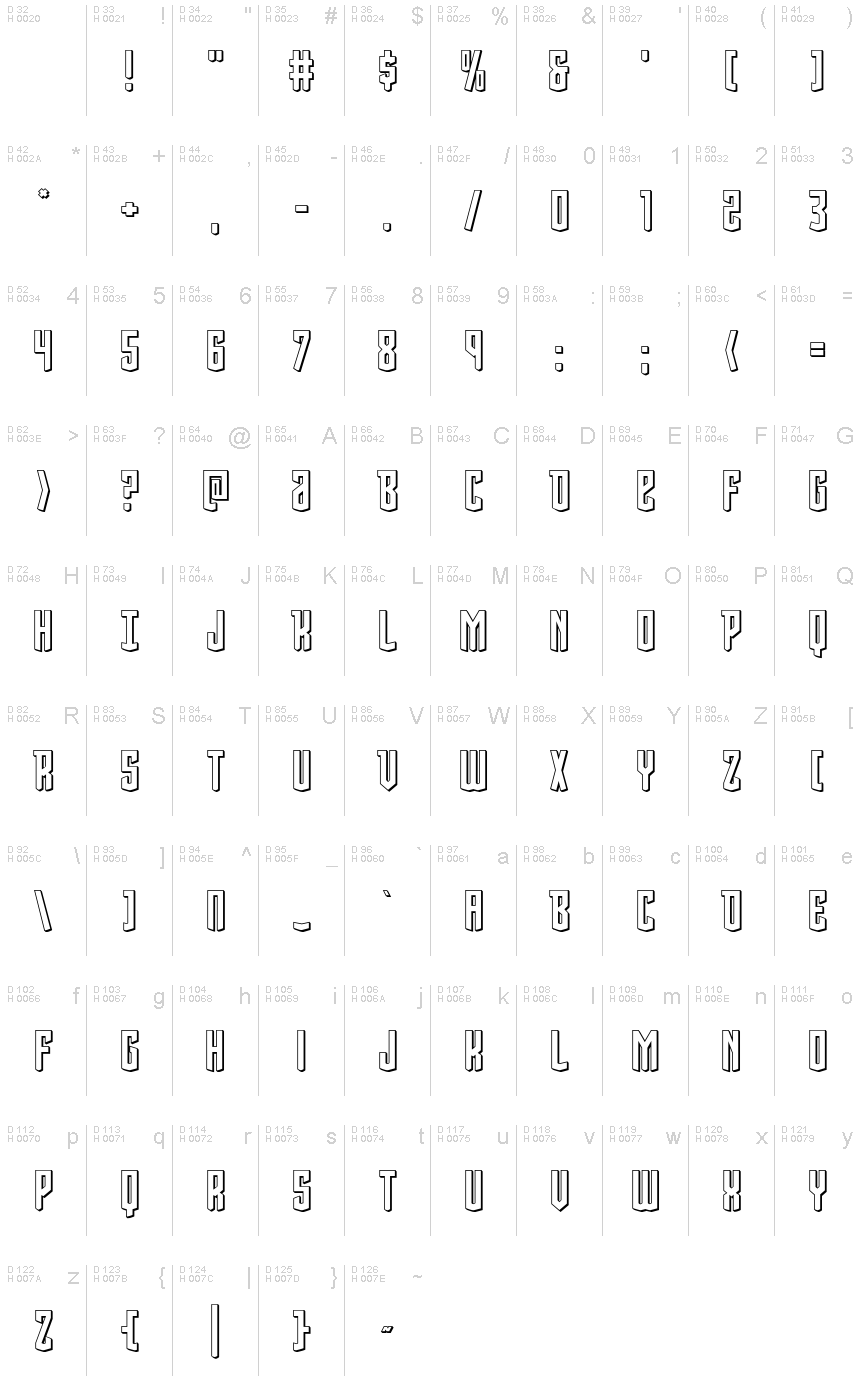
Viceroy of Deacons 3D
Viceroy of Deacons 3D font, from the Viceroy of Deacons family by Iconian Fonts, captivates with its striking 3D gothic style. This condensed font radiates boldness and intricacy, making it an ideal choice for impactful statement pieces. Its unique aesthetic combines a futuristic vibe with classic Gothic elements, ensuring your designs stand out.
Crafted as a display font, Viceroy of Deacons 3D is perfect for eye-catching headlines, posters, and any creative work that demands attention. Whether you're designing for print or digital media, this free font offers versatility and drama. Its artistic flair makes it suitable for everything from video game titles to band logos.